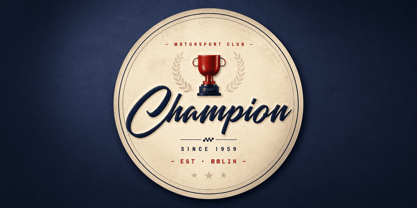
Saturday Race
von Mans Greback
Saturday Race is a thick brush script with an easy lean and a confident hand.
The strokes hold their weight from start to finish, drawn with the kind of marker that bleeds slightly into the paper. The italic angle stays gentle, around eighteen degrees, so a sentence reads forward without tipping into formality. The lowercase carries a quick, even rhythm; the uppercase opens up where the hand had room to swing wide. It feels less like a fine pen and more like a felt-tip held by someone who has done a lot of signs.
You can picture it at the top of a weekend bake-sale flyer, or scrawled across the back of a number bib stuck to a kid's t-shirt before the start line.
The font is built with advanced functionality and guaranteed top-notch quality, containing stylistic and contextual alternates, ligatures and more automatic and manual features; all to give you full control and customizability.
It has extensive lingual support, covering all Latin-based languages, from North Europa to South Africa, from America to South-East Asia. It contains all characters and symbols you'll ever need, including all punctuation and numbers.
Designed and created by Mans Greback.
Designer: Måns Grebäck
Foundry: Mans Greback